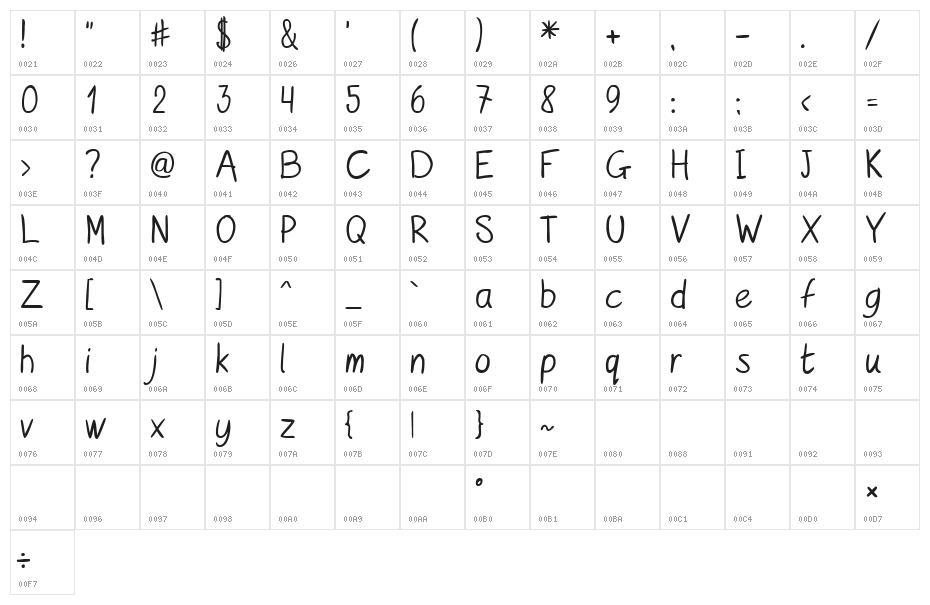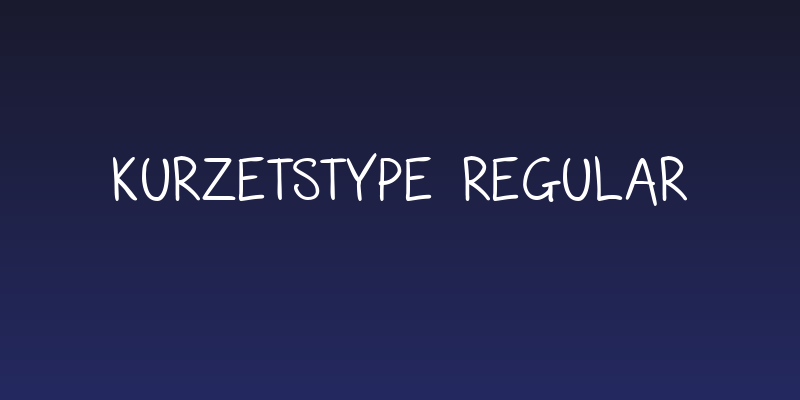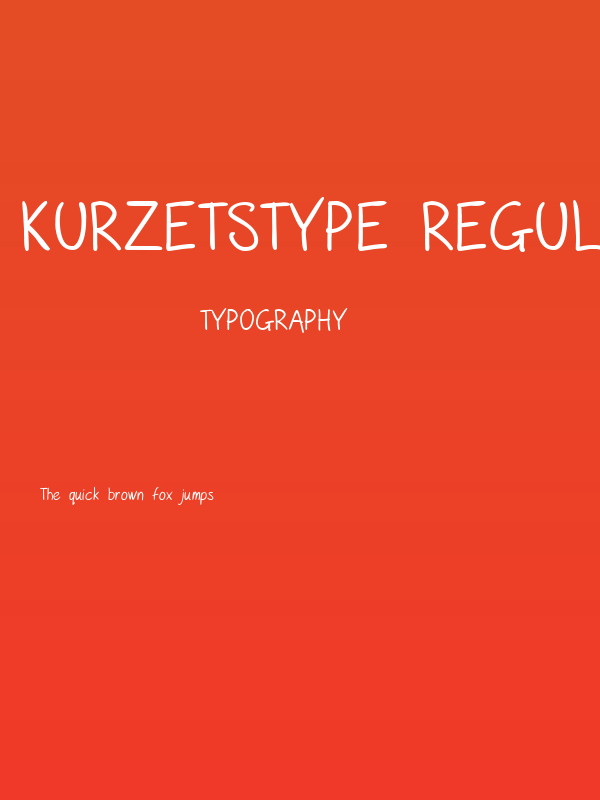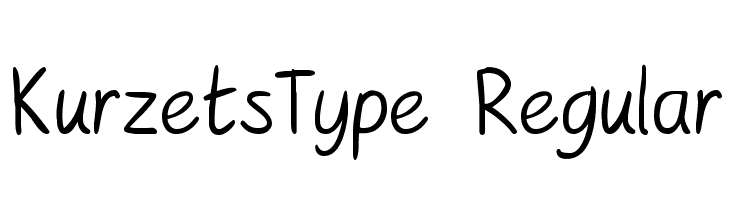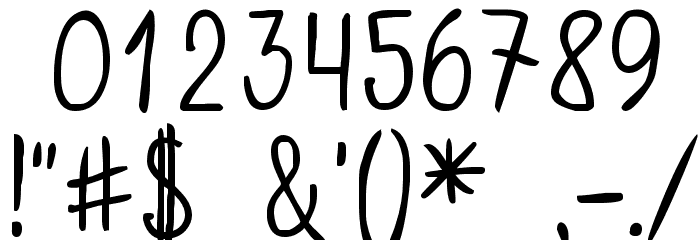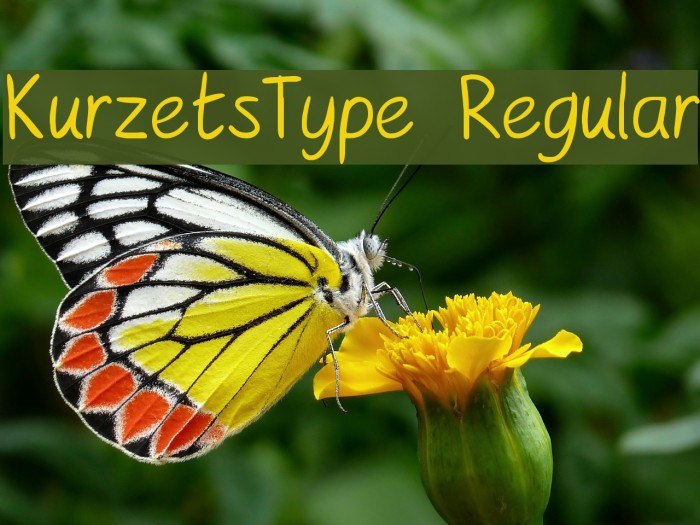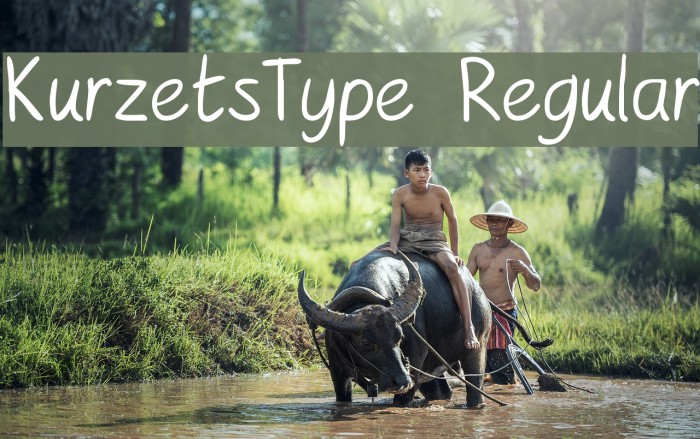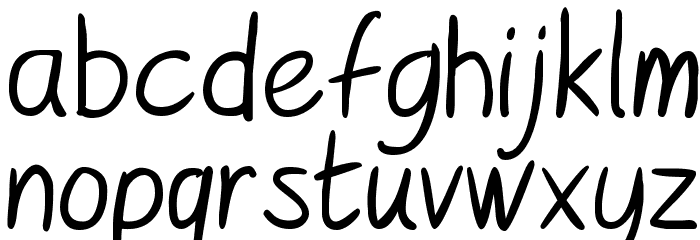
KurzetsType Regular Font
KurzetsType Regular Description
This font features a playful and casual handwritten style, characterized by its smooth, flowing lines and slightly irregular shapes. The uppercase letters are bold and rounded, giving a friendly and approachable feel, while the lowercase letters maintain a consistent style with a touch of whimsy. The numerals are clear and easy to read, matching the overall informal aesthetic. Special characters are well-integrated, maintaining the same playful tone. This font is ideal for projects that require a personal touch, such as invitations, greeting cards, or creative branding.
| Overall Style | Casual |
| Use Case | Headlines, Logos, Informal Text |
| Proposed Projects | Ideal for invitations, greeting cards, creative branding, and personal projects. |